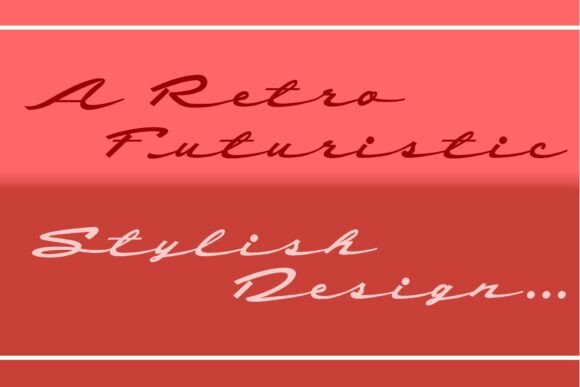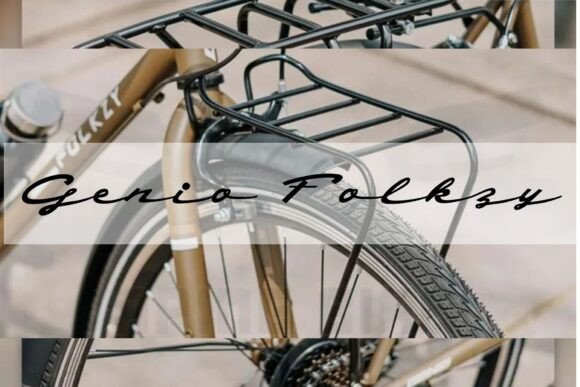
Introducing Commuter Script Font: The Ultimate Retro Futuristic Display Script
Are you a designer or crafter looking for a unique and eye-catching font to give your project a retro-futuristic twist? Look no further than Commuter Script Font, a techno font designed specifically for logo typography, branding, and other modern technological designs. In this article, we’ll dive into the world of Commuter Script Font and explore its features, benefits, and uses.
What is Commuter Script Font?
Commuter Script Font is a retro-futuristic display script font that combines the nostalgia of the past with the sleekness of modern technology. This font is perfect for designers who want to create a unique and memorable brand identity that stands out from the crowd. With its bold and futuristic design, Commuter Script Font is ideal for a wide range of applications, from logo typography and branding to posters, flyers, and digital media.
Key Features of Commuter Script Font
- Retro-Futuristic Design: Commuter Script Font boasts a unique retro-futuristic design that blends vintage and modern elements.
- Techno-Inspired: This font is perfect for tech-related designs, with a bold and futuristic look that’s sure to grab attention.
- Highly Versatile: Commuter Script Font can be used for a wide range of applications, from logo typography and branding to posters, flyers, and digital media.
- Easily Customizable: This font is highly customizable, allowing you to adjust the size, color, and style to fit your design needs.
Benefits of Using Commuter Script Font
So why choose Commuter Script Font for your next design project? Here are just a few benefits of using this amazing font:
- Stand Out from the Crowd: With its unique retro-futuristic design, Commuter Script Font is sure to make your design stand out from the crowd.
- Perfect for Tech-Related Designs: This font is ideal for tech-related designs, such as logos, branding, and digital media.
- Easily Readable: Despite its bold and futuristic design, Commuter Script Font is highly readable, even at small sizes.
- Time-Saving: With Commuter Script Font, you can save time and effort by using a pre-designed font that’s ready to use.
Use Cases for Commuter Script Font
So what can you use Commuter Script Font for? Here are just a few ideas to get you started:
- Logo Typography: Use Commuter Script Font to create a unique and memorable logo that stands out from the crowd.
- Branding: This font is perfect for branding, from business cards to letterheads and more.
- Posters and Flyers: Commuter Script Font is ideal for creating eye-catching posters and flyers that grab attention.
- Digital Media: Use this font for digital media, such as social media graphics, video titles, and more.
Tips and Tricks for Using Commuter Script Font
Here are a few tips and tricks to help you get the most out of Commuter Script Font:
- Experiment with Colors: Try out different colors and gradients to give your design a unique and eye-catching look.
- Play with Size and Style: Experiment with different sizes and styles to find the perfect combination for your design.
- Combine with Other Fonts: Try combining Commuter Script Font with other fonts to create a unique and interesting look.
In conclusion, Commuter Script Font is a versatile and highly customizable font that’s perfect for designers and crafters looking to add a retro-futuristic twist to their projects. With its bold and futuristic design, this font is ideal for a wide range of applications, from logo typography and branding to posters, flyers, and digital media. So why wait? Download Commuter Script Font today and start creating amazing designs that stand out from the crowd!